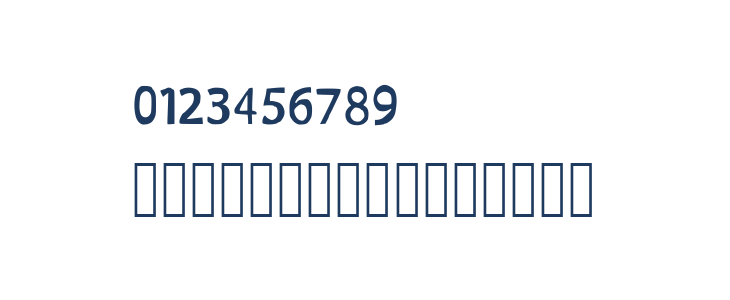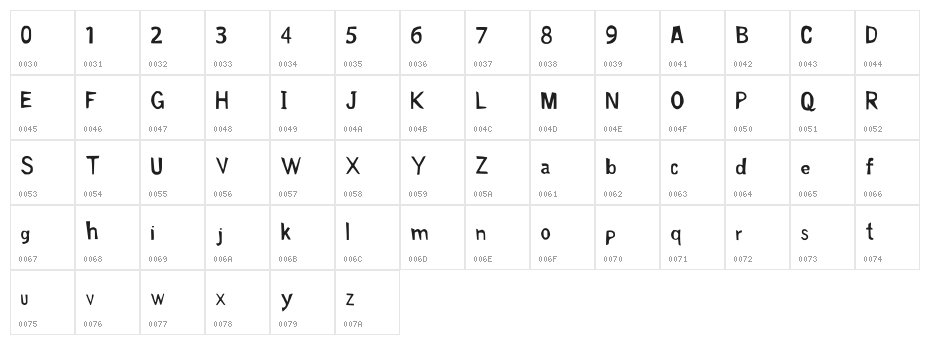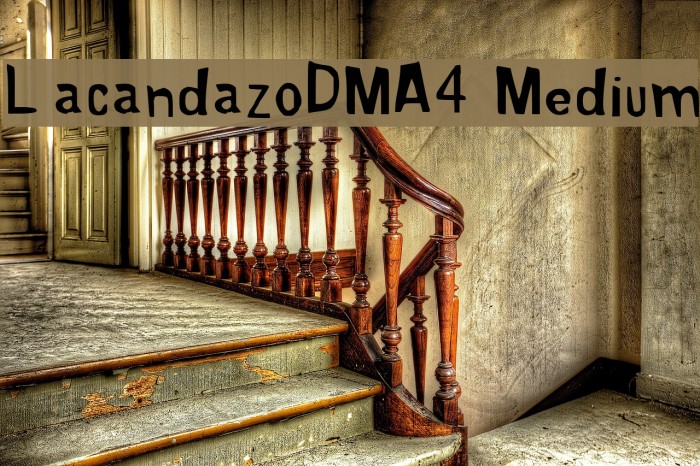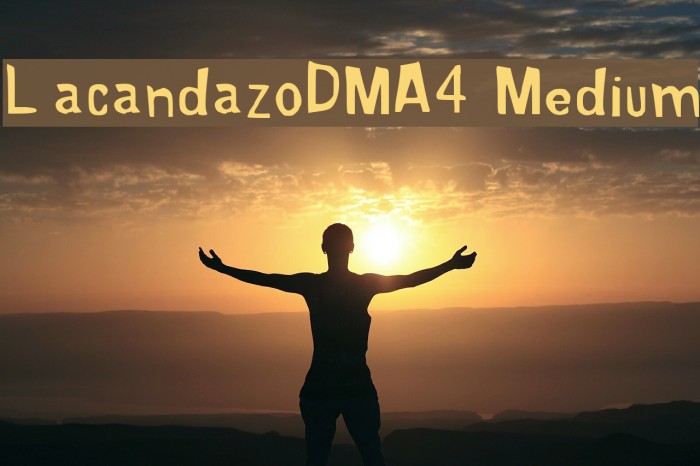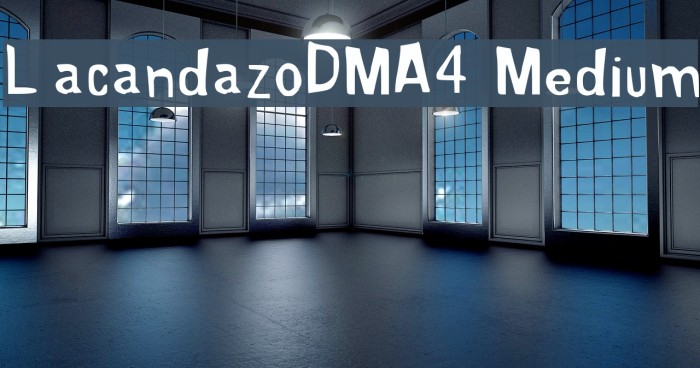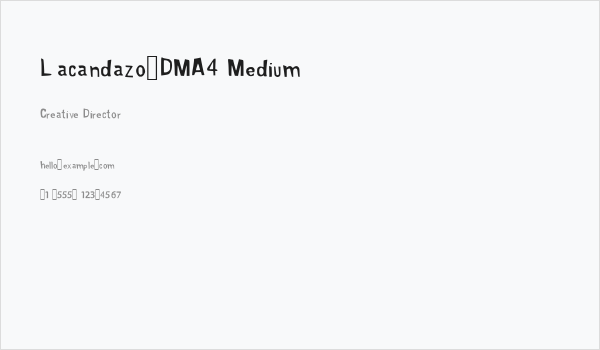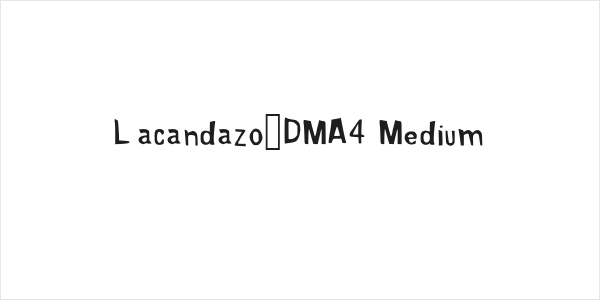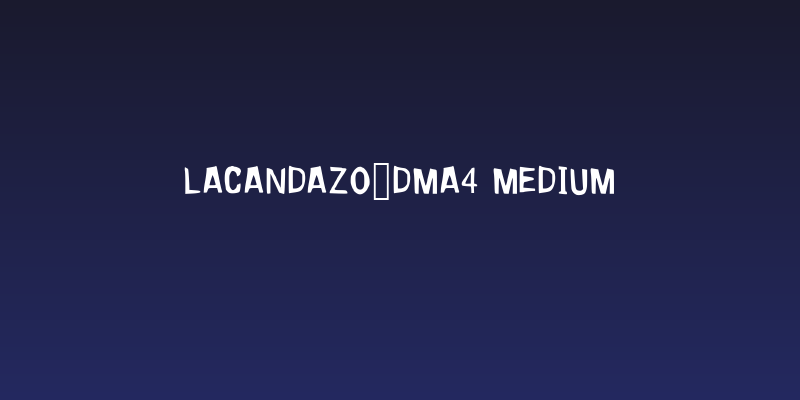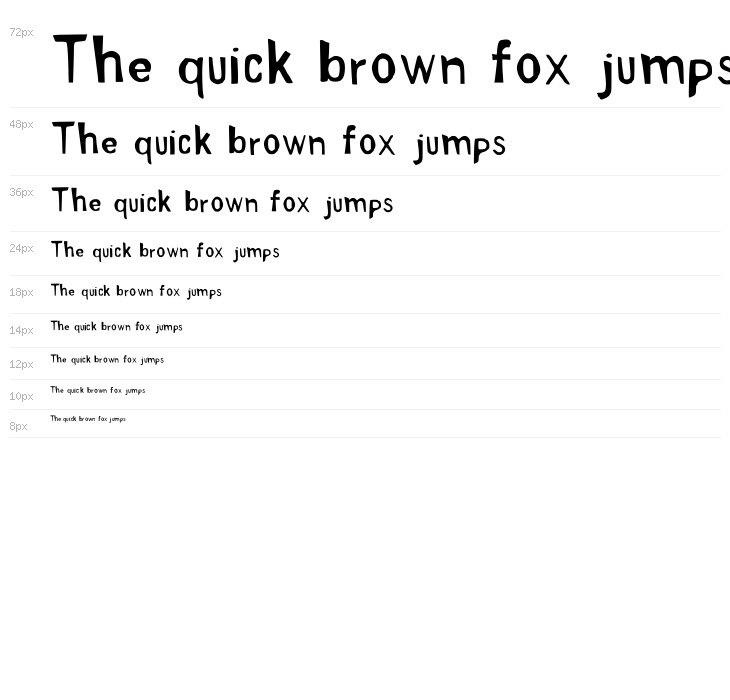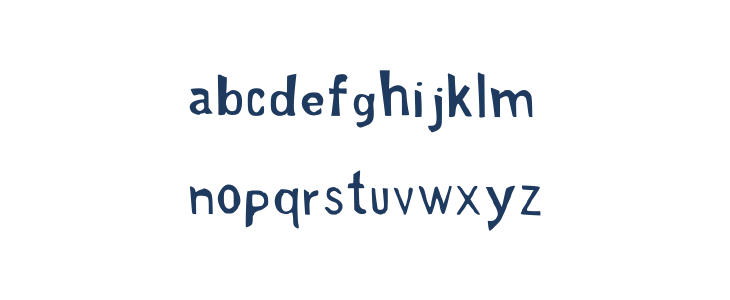
Lacandazo_DMA4 Medium Font
Lacandazo_DMA4 Medium Description
This font features a playful and slightly irregular design, giving it a hand-drawn appearance. The uppercase letters are bold and have a whimsical, uneven quality, while the lowercase letters maintain a similar style with a touch of casual elegance. The numbers are consistent with the overall playful theme, making them stand out with their unique shapes. Special characters are creatively designed, adding to the font's charm. This font is perfect for projects that require a fun and informal touch, such as children's books, posters, or creative branding.
| Overall Style | Playful, Hand-drawn |
| Proposed Projects | Ideal for children's books, playful posters, creative branding, and informal invitations. |